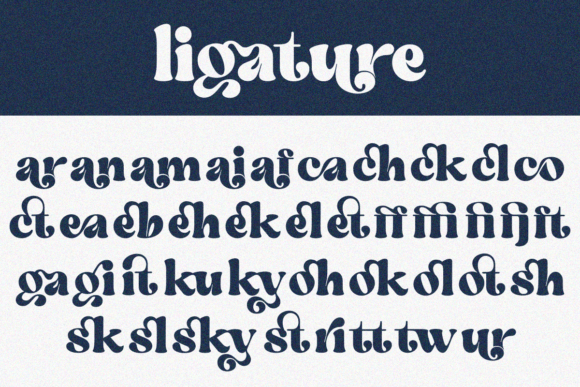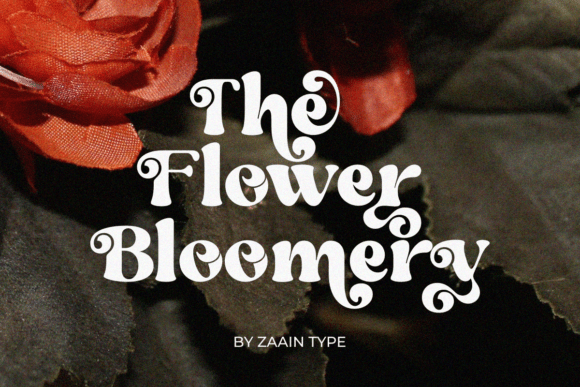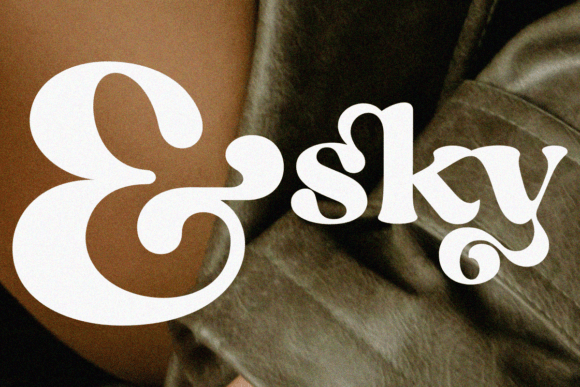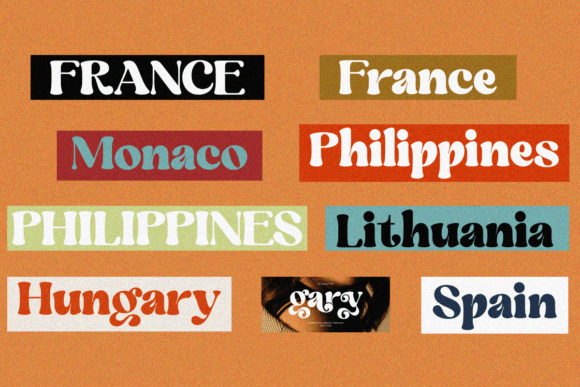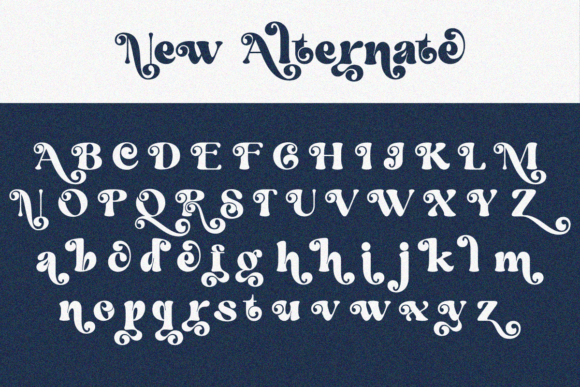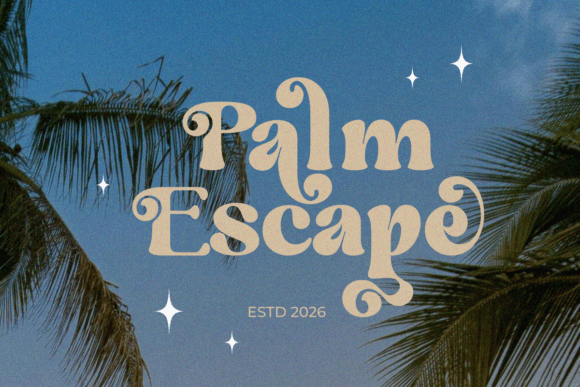
Gary Font: Elevate Your Designs with Timeless Elegance and Contemporary Sophistication
In the world of typography, a well-crafted font can make all the difference in elevating a design from ordinary to extraordinary. Introducing Gary, a modern serif typeface that seamlessly blends timeless elegance with contemporary sophistication. With its refined curves, balanced proportions, and distinctive character details, Gary is poised to become the go-to choice for designers seeking a serif font that exudes confidence, style, and professionalism.
The Essence of Gary: A Perfect Balance of Form and Function
Gary’s design is rooted in the principles of classic serif typography, yet infused with a modern twist that sets it apart from traditional typefaces. Its letterforms boast refined curves that convey a sense of luxury and sophistication, while its balanced proportions ensure optimal readability across a wide range of design applications. Whether used for headlines, body text, or captions, Gary’s versatile typography creates a beautiful visual flow that engages and informs audiences.
Design Applications: Where Gary Shines
Gary’s adaptability and elegance make it an excellent choice for various design projects, including:
• Luxury Branding: Gary’s sophisticated and refined aesthetic makes it perfect for high-end brands seeking to establish a premium image.
• Editorial Layouts: Gary’s classic serif design and exceptional readability make it ideal for magazines, newspapers, and digital publications.
• Packaging: Gary’s distinctive character details and elegant curves add a touch of sophistication to product packaging, making it stand out on store shelves.
• Invitations: Gary’s refined typography and classic design make it an excellent choice for formal invitations, such as weddings, galas, and other special events.
The Benefits of Using Gary
Gary offers a range of benefits that make it an attractive choice for designers and crafters:
• Timeless Elegance: Gary’s classic serif design ensures that your designs remain stylish and relevant for years to come.
• Contemporary Sophistication: Gary’s modern twist sets it apart from traditional serif typefaces, giving your designs a fresh and contemporary feel.
• Exceptional Readability: Gary’s balanced proportions and refined curves create a beautiful visual flow, making it easy for audiences to engage with your content.
• Versatility: Gary’s adaptable typography makes it suitable for a wide range of design applications, from headlines and body text to captions and quotes.
Why Designers and Crafters Love Gary
Gary has quickly become a favorite among designers and crafters due to its unique combination of style, elegance, and versatility. Here are just a few reasons why:
• Easy to Use: Gary is designed to be user-friendly, making it easy to integrate into your design workflow.
• High-Quality Typography: Gary’s refined curves and balanced proportions ensure that your designs look professional and polished.
• Customization Options: Gary offers a range of customization options, allowing you to tailor the font to your specific design needs.
Font Name Gary Font
Author zaaintype
In conclusion, Gary is a modern serif typeface that offers a perfect blend of timeless elegance and contemporary sophistication. Its refined curves, balanced proportions, and distinctive character details make it an excellent choice for designers seeking a serif font that exudes confidence, style, and professionalism. Whether used for luxury branding, editorial layouts, packaging, or invitations, Gary is poised to elevate your designs to new heights. With its exceptional readability, versatility, and user-friendly design, Gary is sure to become a staple in the world of typography.